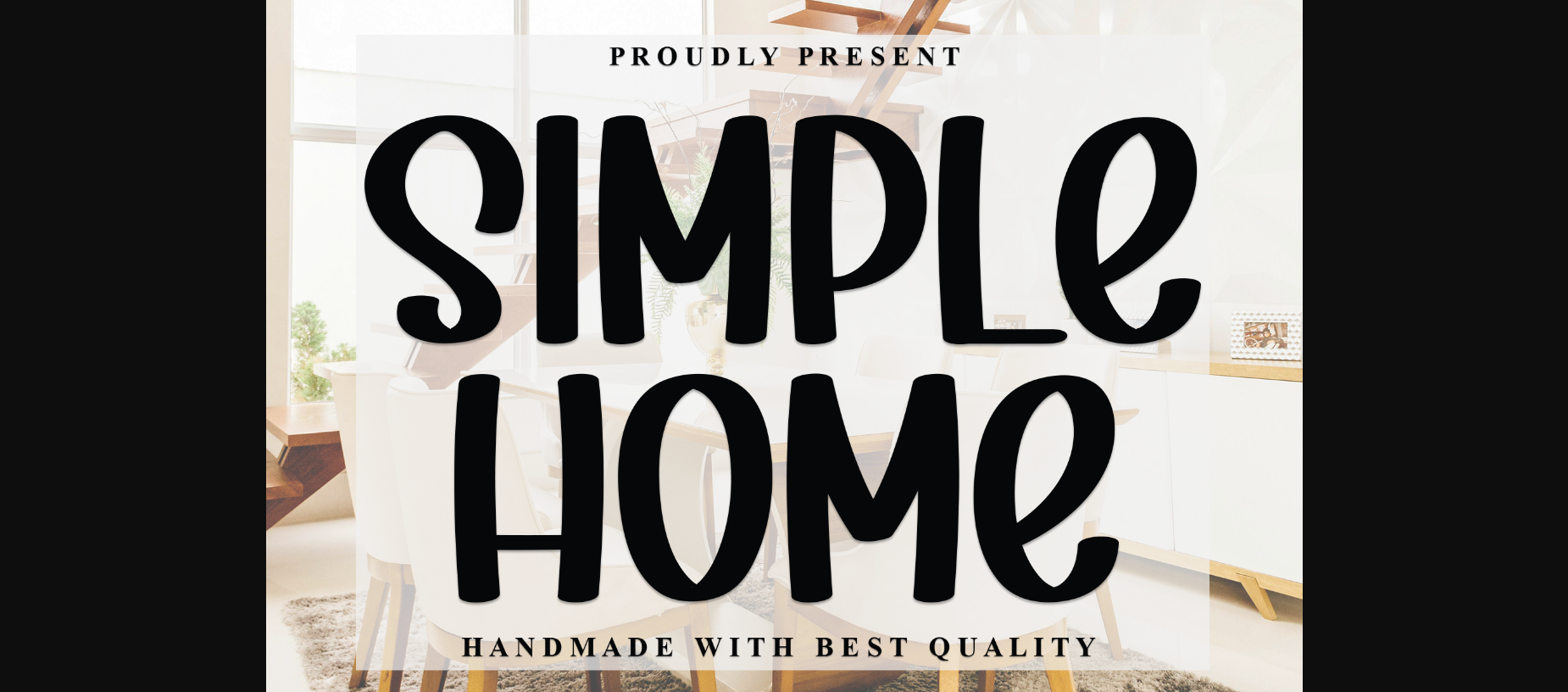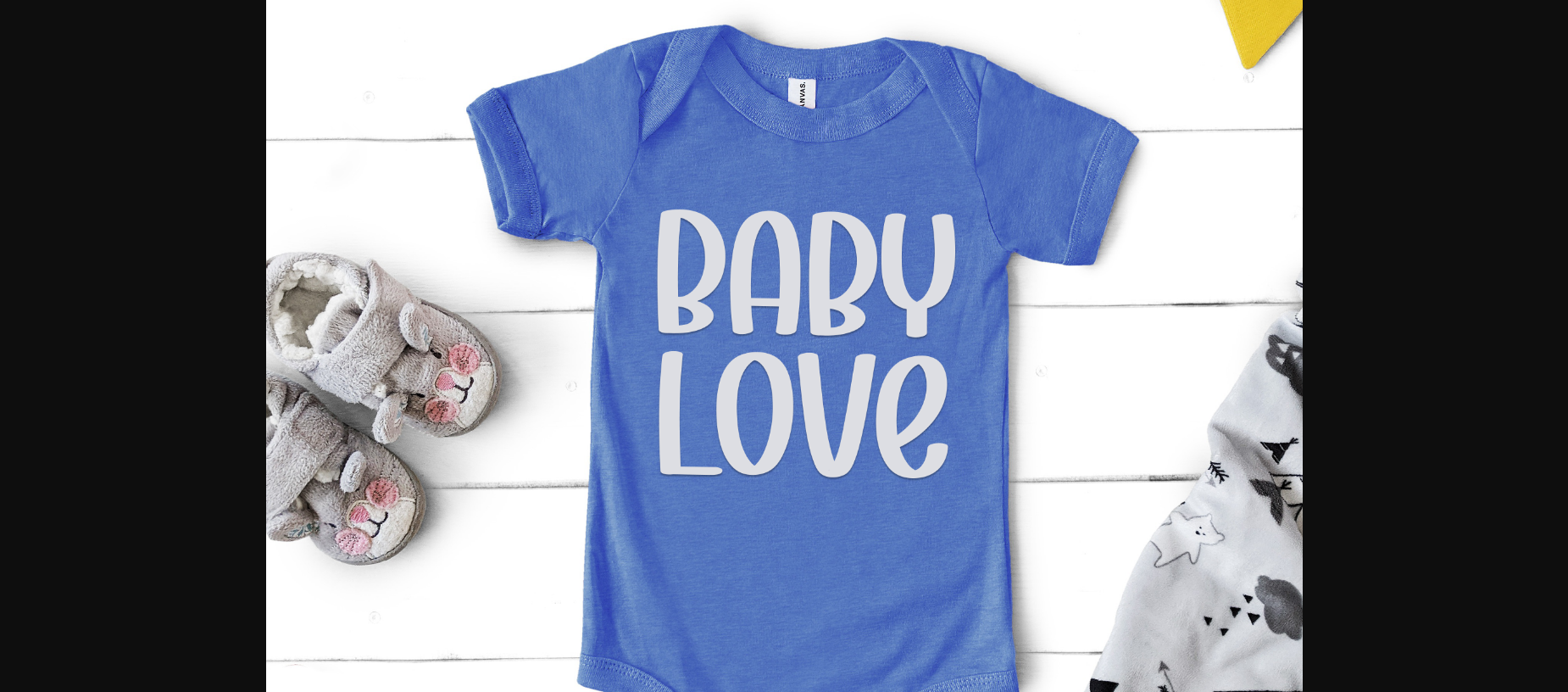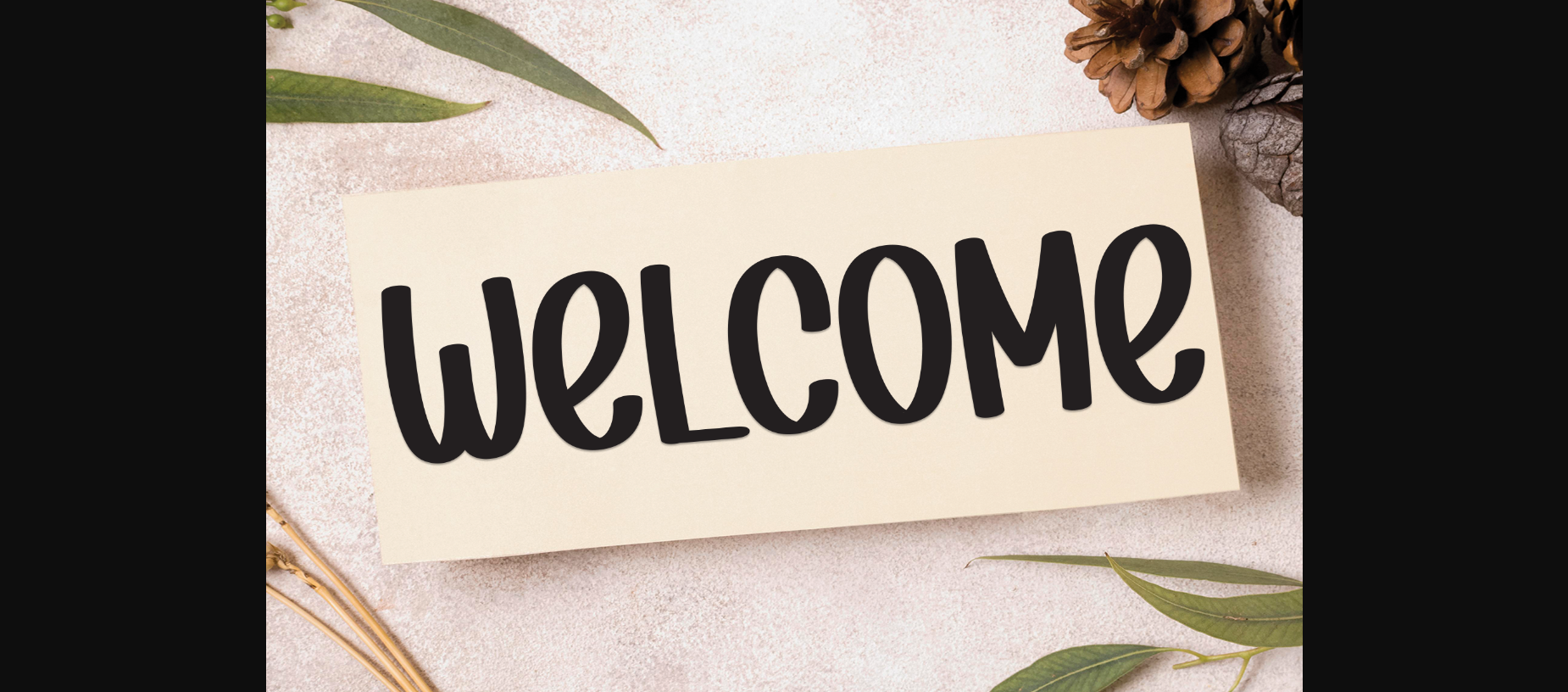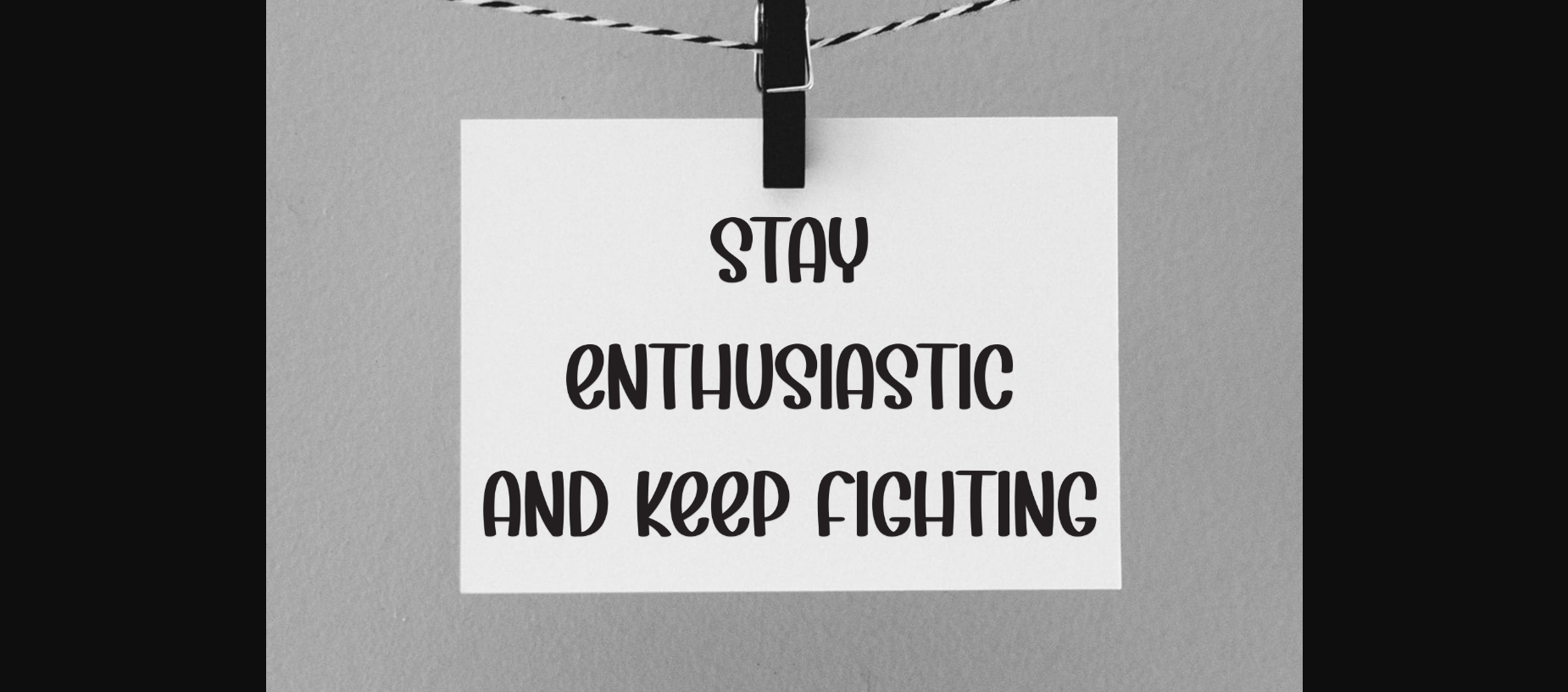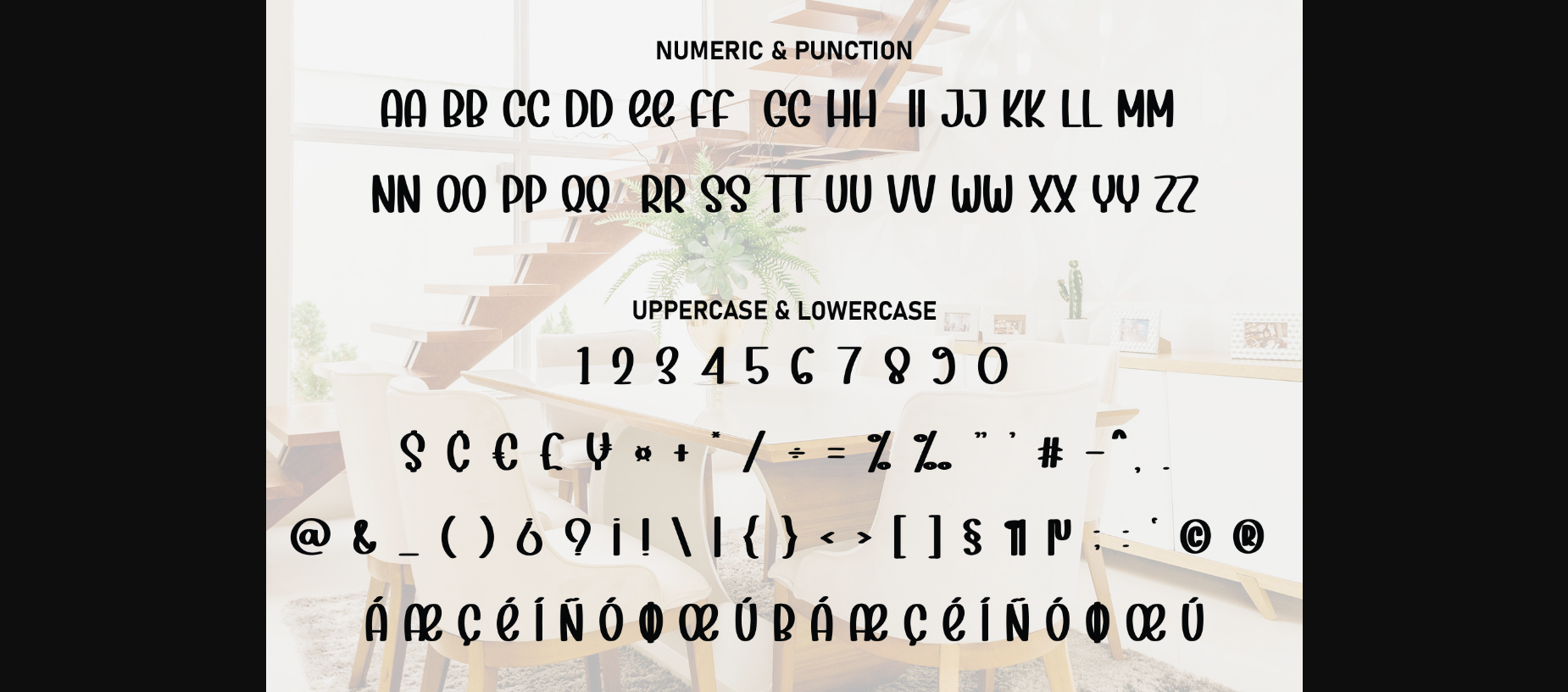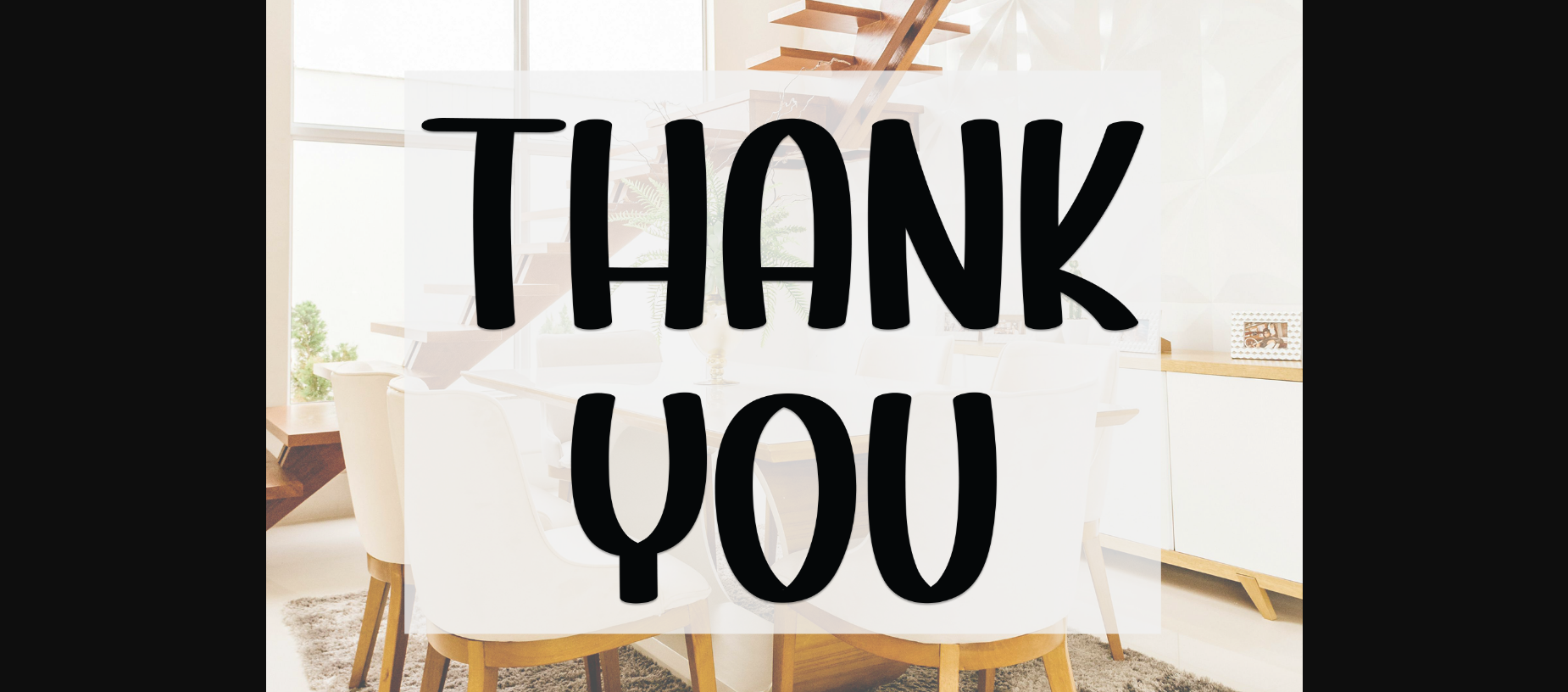
HomeSans Serif FontsSimple Home Font Sans Serif Fonts Simple Home Font FacebookXPinterestWhatsApp 1 of 8 ... Simple Home Font Poster 2... Simple Home Font Poster 3... Simple Home Font Poster 4... Simple Home Font Poster 5... Simple Home Font Poster 6... Simple Home Font Poster 7... Simple Home Font Poster 8... About Simple Home Font Simple Home is a neat and beautiful sans-serif font described by an elegant touch, perfect for your favorite projects. Fall in love with its incredibly distinct and timeless style, and use it to create spectacular designs! DOWNLOAD NOW People also explored Shaipora Font Berlyna Font Ellena Font Heather Font Madeline Font Girly Night Font Miss Nailine Font Gisho Font Ghost Halloween Font 341 0 TagsSimple Home Font Previous articleBussines Taxes FontNext articleSweet Dreams Font LEAVE A REPLY Cancel reply Comment: Please enter your comment! Name:* Please enter your name here Email:* You have entered an incorrect email address! Please enter your email address here Website: Save my name, email, and website in this browser for the next time I comment. Personal Use Free Stronger Personal Use Free Read more about this font Rare Knuckle Personal Use Free Read more about this font Brittish State Personal Use Free Read more about this font Bebas Neue Font Personal Use Free Read more about this font BLOG Using Fonts in Digital Marketing: Tips to Strengthen Your Brand Identity In the realm of digital marketing, every visual element plays a crucial role in shaping a brand's identity, and fonts are no exception. The... Top 7 Google Fonts Alternatives for Faster and Privacy-Friendly Web Design (2025) How to Cut Any Font on Cricut: Convert a Font to SVG (Free) 5 Fonts That Will Dominate Design Trends in 2026